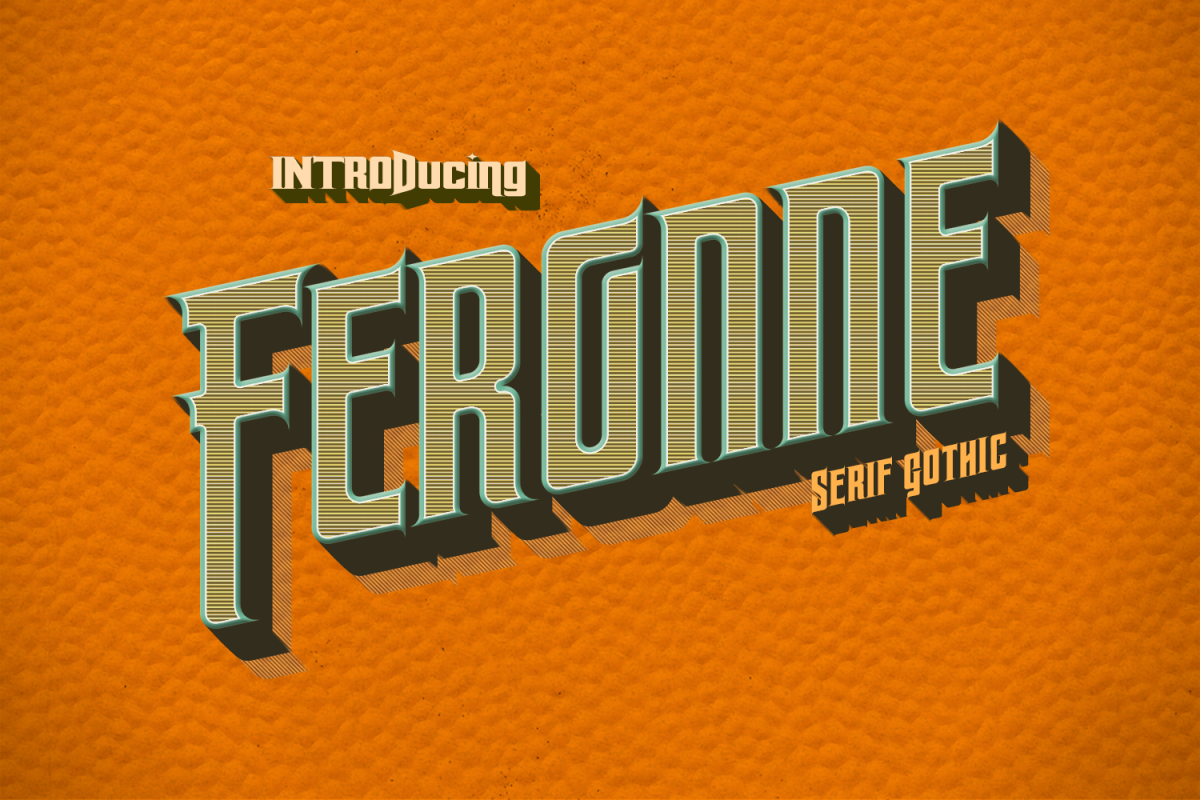
Feronne Serif Gothic Family
Feronne Serif Gothic is a decorative typeface with retro and modern look, from victorian to the seventies flavour. A groovy label font.
includes both Regular & wide weights with related italics sets
774 glyphes, advanced latin set, cyrillic and lots of Alternates for a very playful fonts